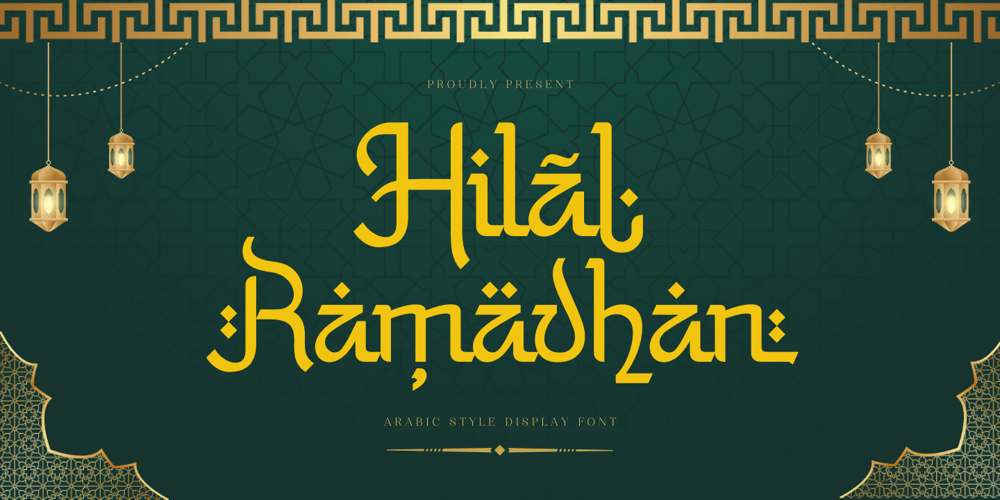
Hilal Ramadhan
Hilal Ramadhan font
Hilal Ramadhan Font Family was designed by Muhamad Yusron Billah and published by Sronstudio. Hilal Ramadhan contains 1 styles and family package options. Introducing “Hilal Ramadhan,” a font inspired by the sacred month of Ramadan. With its graceful letterforms and intricate details, this font captures the spirit of spirituality and reflection. Ideal for Ramadan-themed designs such as greeting cards, posters, or social media graphics, “Hilal Ramadhan” adds a touch of elegance and reverence to your projects, honoring the significance of this holy time. Let this font enhance your Ramadan-related creations with its timeless beauty and cultural significance.Features:– Alternates– Ligatures– PDF Guide– Numeral & Punctuation– PUA Encoded– Multilingual support– Simple Installation– Work both on Mac and WindowsThank you very much 🙂